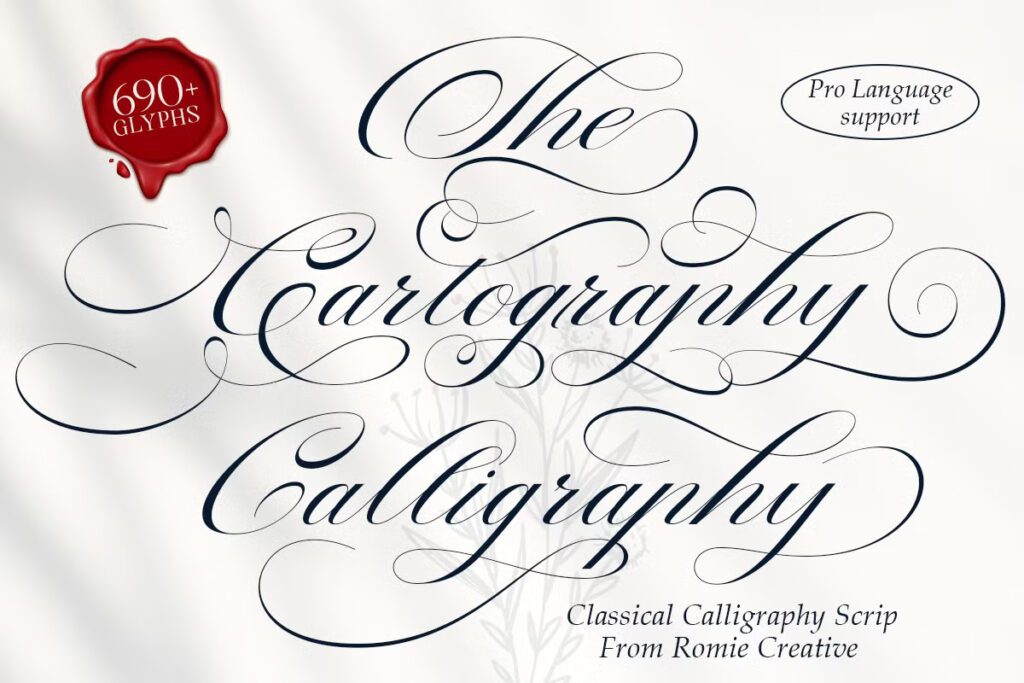
The Cartography Calligraphy Font: Elegant Script for All Your Design Needs
Introducing The Cartography Calligraphy Font, a stunning calligraphy typeface that blends classic decorative copper script with a modern aesthetic. Designed with intricate detail, this font exudes sophistication and style, making it the perfect choice for a variety of formal and creative projects.
Why Choose The Cartography Calligraphy Font?
The Cartography Calligraphy Font is designed to be both elegant and versatile, with a smooth and clean appearance. The beautiful letter connections and feminine charm make this font ideal for any project that requires a touch of glamour and sensuality. Here’s what makes this font stand out:
High readability: Despite its decorative design, this font remains clean and easy to read, ensuring it works well for both large and small text.
Flexible use: Ideal for projects like wedding invitations, restaurant menus, fashion branding, logos, and even novels or magazines.
Additional style alternatives: Enjoy a variety of stylistic alternates, giving you more creative freedom to customize your designs.
Perfect for Formal and Creative Designs
Whether you’re working on a greeting card, designing a book cover, or branding a fashion line, The Cartography Calligraphy Font adds an elegant touch to every project. Its timeless style works seamlessly across different design formats, including:
Invitations & Stationery: Perfect for weddings, parties, or special events.
Branding & Logos: Enhance your brand with a sophisticated, personalized font.
Advertising & Packaging: Make your product packaging and ads stand out with a sleek and elegant typeface.
If you’re looking to add a touch of class and modern elegance to your next design project, The Cartography Calligraphy Font is the perfect choice. It brings together both beauty and versatility, making it a must-have in any designer’s toolkit.